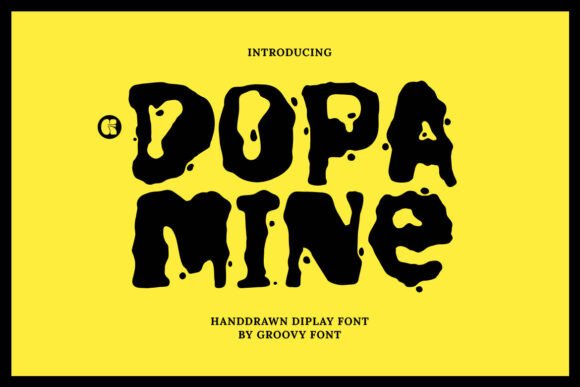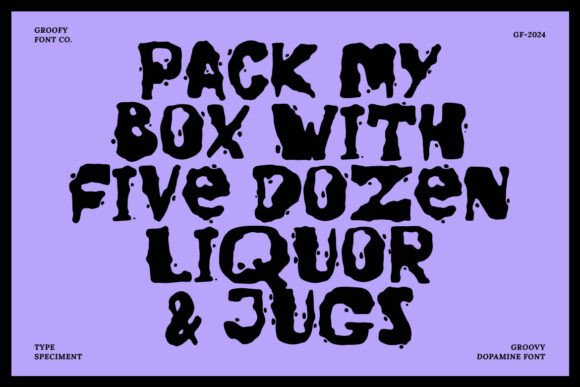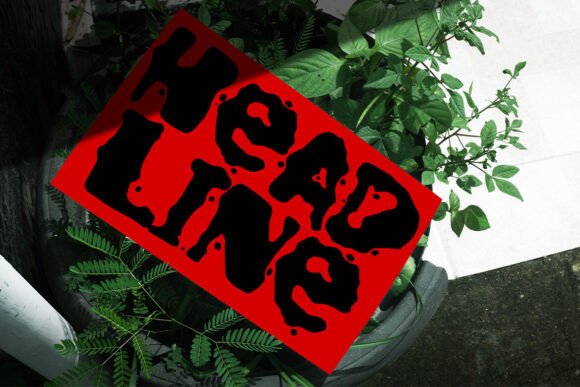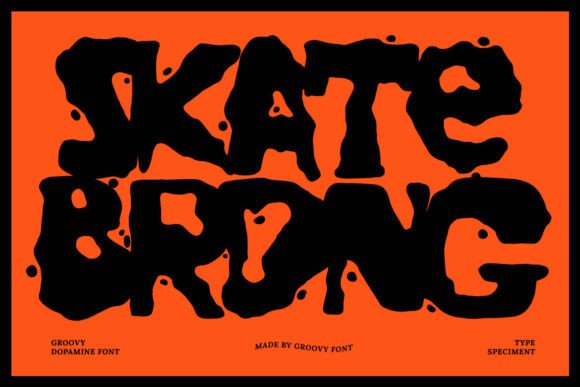
Groovy Dopamine Font
About the Groovy Dopamine Font
Make a bold statement with Groovy Dopamine Font, a powerful and memorable font. Groovy Dopamine is a Handdrawn Display Font that exudes a bold and expressive aesthetic.
With a thick brush-like design, each letter in this font is adorned with unique dots, adding a touch of mystique and intrigue to its overall appearance.
The combination of the thick strokes and the ominous dots gives this font a slightly eerie and captivating quality, making it a standout choice for projects that call for a touch of the unexpected.
Groovy Dopamine excels as a headline font for posters, branding materials targeting a younger demographic, and packaging design for products with a bold, edgy personality. Its unique texture works best in large sizes; avoid using it for body text or UI elements where readability is paramount. Small sizes lose the impactful character of the brush strokes and dots.
The font’s inherently bold and slightly eerie personality is best complemented by pairing it with clean sans-serif fonts like Open Sans or Lato for a balanced contrast. For a more playful feel, consider pairing it with a rounded geometric sans-serif. Avoid pairing it with other highly decorative or script fonts, as this could create visual clutter.
Groovy Dopamine’s overall mood is best described as bold, mysterious, and slightly rebellious. Brands focusing on alternative music, streetwear fashion, or horror/fantasy themes will find it particularly effective.
Groovy Dopamine Font Usage Examples
Groovy Dopamine Font Example